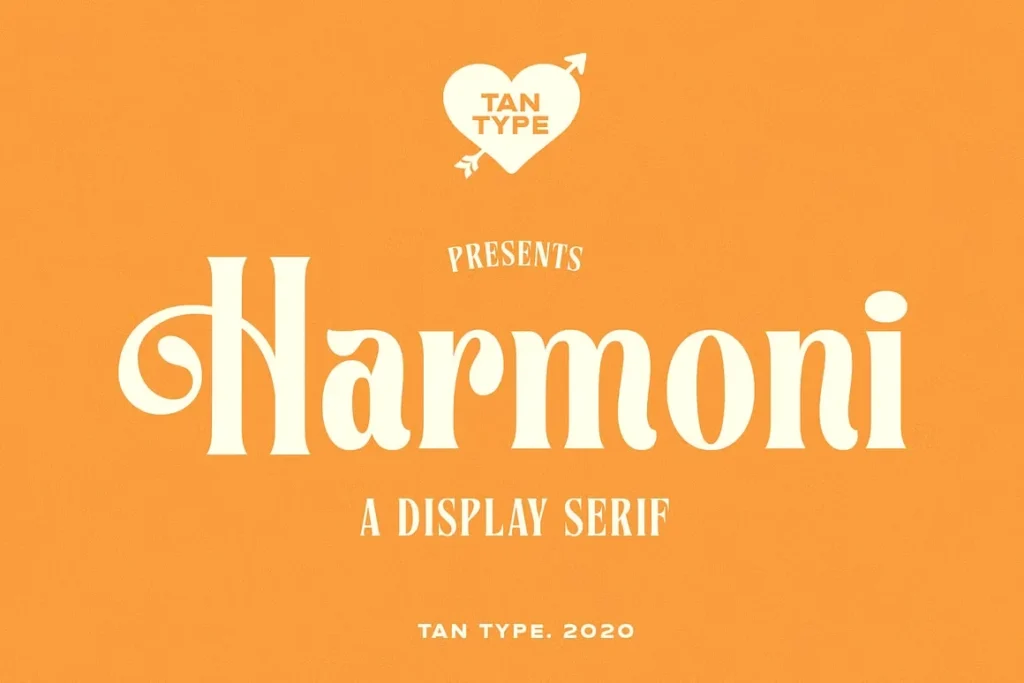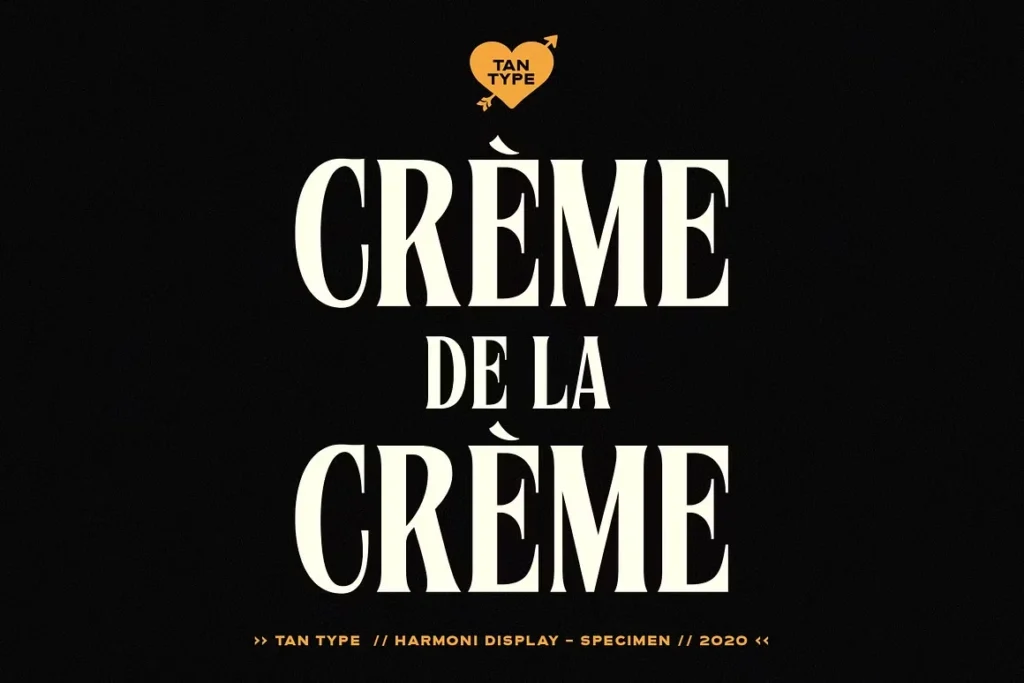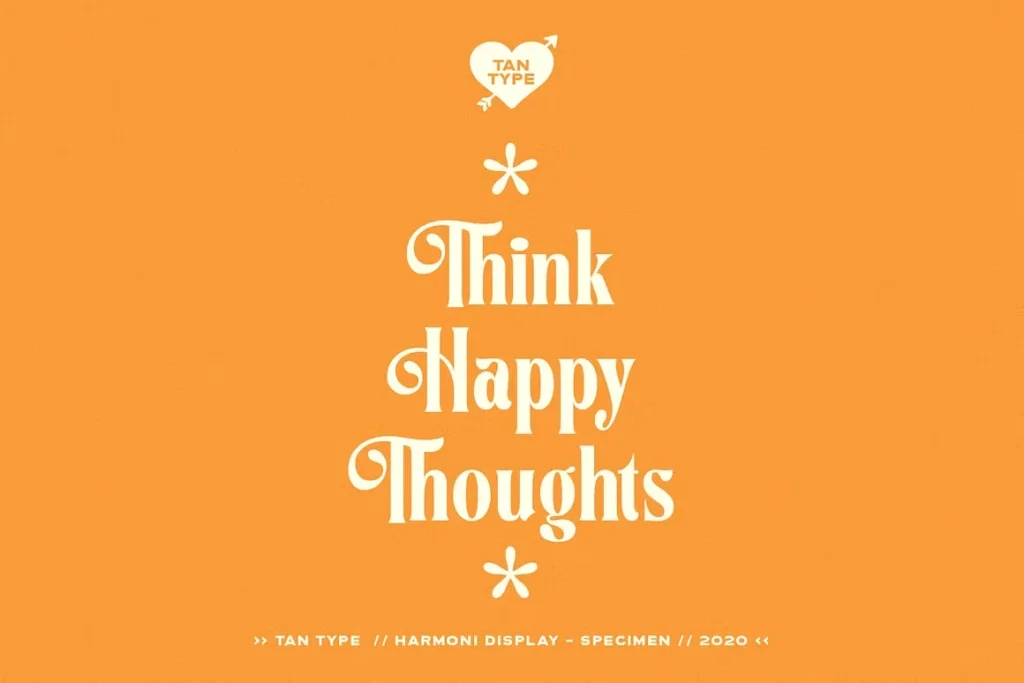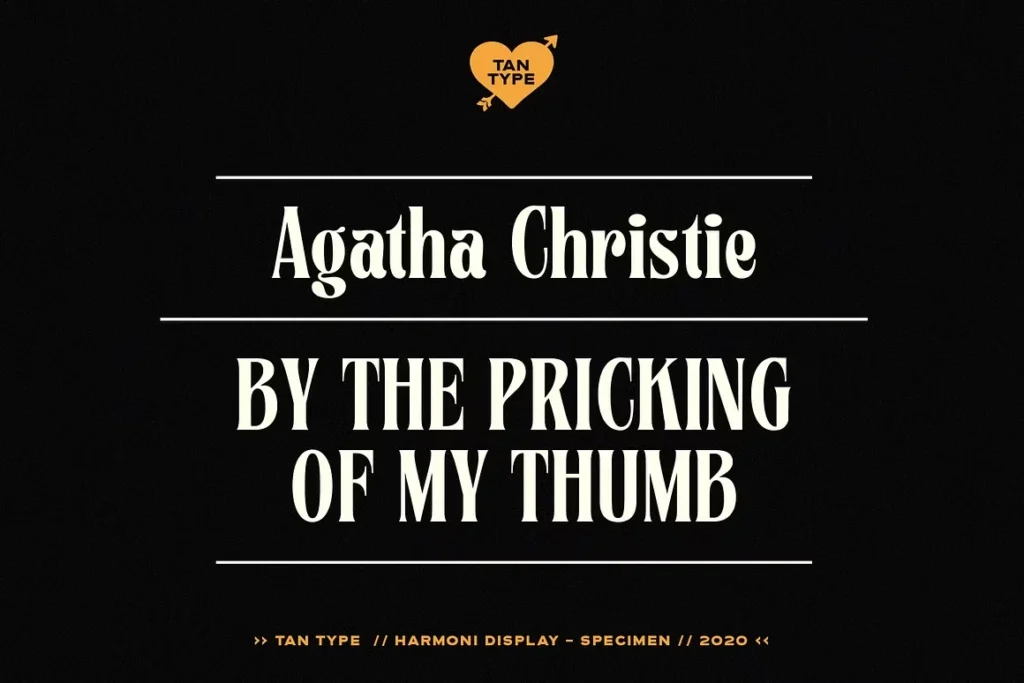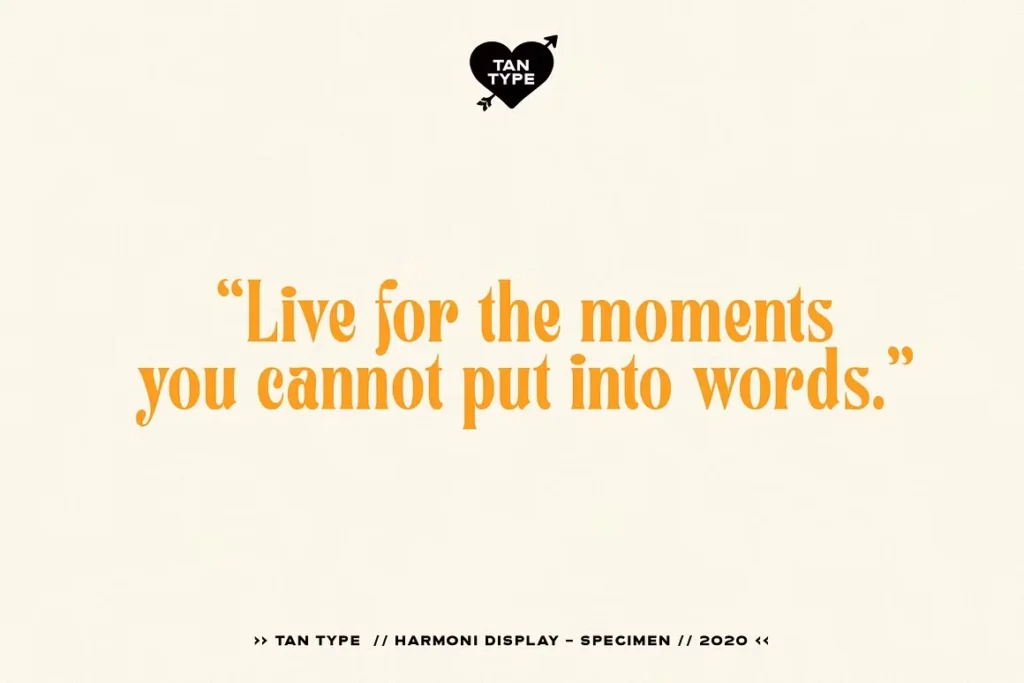
About Harmoni Font
As a typographer and graphic designer, fonts are more than tools. They shape the way people feel when they see a brand. I recently worked on a wedding-themed branding project and stumbled across the Harmoni Font on Etsy Finland. It immediately stood out. The balance between elegance and a fun, handwritten vibe was exactly what I needed. So, I tested it in logos, headings, and monograms. It delivered.
I’m writing this review because Harmoni impressed me. It’s not just another display serif. It’s modern, full of character, and brings real presence to any design. I don’t share reviews often, but this one deserves it.
TAN Harmoni is a Display Serif Typeface Designed by TanType
Harmoni is a display serif font created by TanType, a creative font studio known for making bold and expressive typefaces. This one is no exception. It’s a modern font that retains the balance between being playful yet elegant. Great for calligraphy-style headlines or clean, high-end brand work.
The alternates for all the uppercase letters are what makes it shine. There are also a few lowercase options. Turn off the stylistic toggle, and you’ll find a more serious tone. Less calligraphy, more classic serif font. It’s basically two fonts in one.
Features of the Harmoni Display Serif Font
Harmoni is a display serif font that brings a handcrafted, high-fashion look. It feels custom, like a logo someone spent hours perfecting. Each letter has weight and detail, especially the uppercase set. The alternates make it easy to shift the tone from romantic to clean. One switch and you’re moving from a wedding invite to a modern lifestyle brand.
The letter spacing feels balanced right out of the box. You don’t have to spend hours adjusting it. Harmoni works well in both bold and thin styles, which makes it flexible across platforms like Cricut, Procreate, Adobe programs, and more.
You’ll notice right away that this isn’t your basic serif font. The swashes on some uppercase alternates add a handwritten font feel without turning it into a full-on cursive font. It walks the line between playful and professional really well.
Because it’s a display serif, Harmoni works best in larger sizes. Titles, logos, shop signs, social graphics. That’s where it shines. The monoline touch on certain letters gives it a touch of modern calligraphy. It’s easy to see why it’s one of the favorites from Etsy shoppers.
Harmoni is made for design that needs personality. Use it in wedding invitations, brand logos, product packaging, or even bold web banners. It fits perfectly in boutique branding, especially for beauty, fashion, and artisan shops. With its alternate uppercase letters and stylized lowercase, Harmoni brings real impact when used for logos or headlines.
For Cricut fans, this font is a great choice. The curves and monoline details cut cleanly, making it one of the standout Cricut fonts. It also works beautifully in Procreate for custom lettering or digital art. If you’re a content creator looking for something fresh, this is a font that won’t look like every other free download out there.
Harmoni is also perfect for social media templates. Whether you’re using Canva or a more advanced program, the vibe instantly upgrades your post. Need a classy callout? Use the alternate uppercase. Want a clean, modern look? Turn off the stylistic toggle.
No matter where you use it, like Etsy listings, wedding signage, logos, or custom cards, the Harmoni display serif font will hold its own.